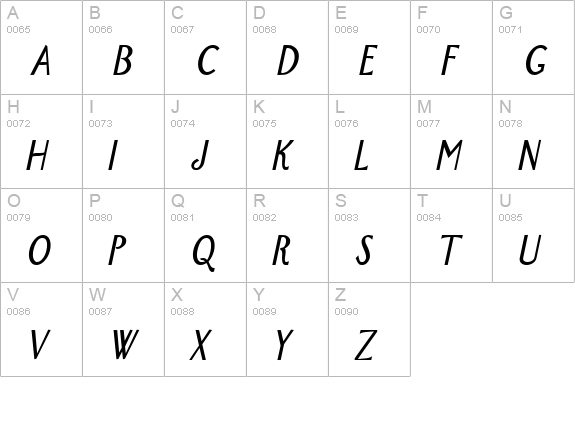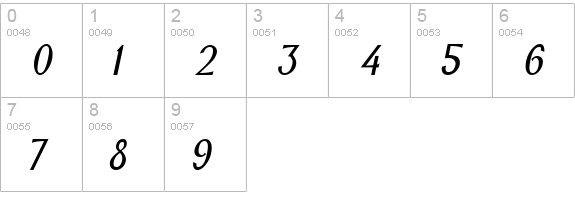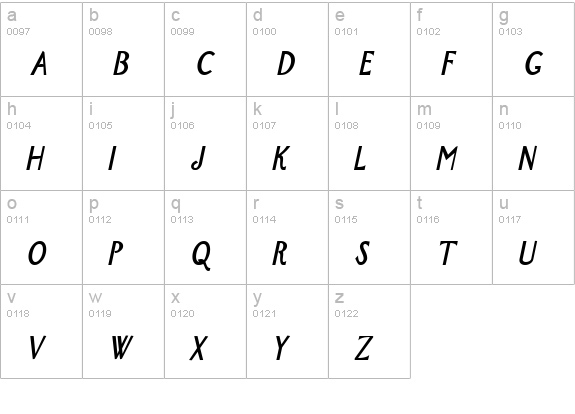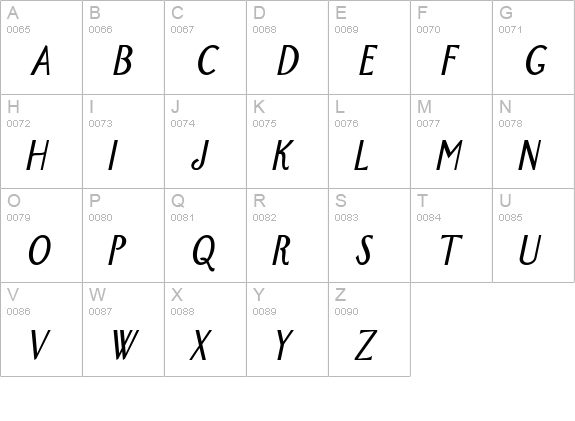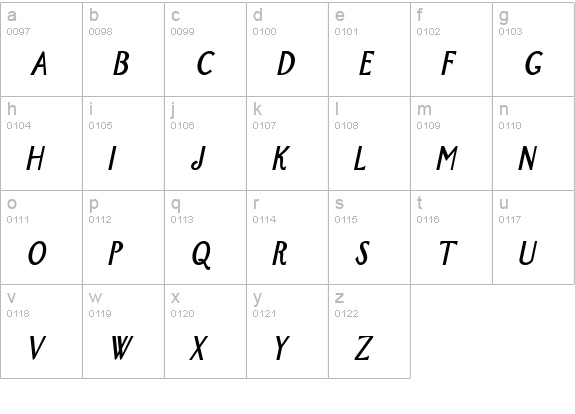
New York-Condensed Bold Italic Font Details
New York-Condensed Bold Italic is a strong, high-contrast, condensed-width, italic variant in the New typeface family \xE2\x80\x94 well suited to headlines, attention-grabbing titles, and strong calls-to-action.
Introducing the New York-Condensed Bold Italic font, a sleek and modern typeface that exudes sophistication and style. This bold and italic variation of the New York font family is perfect for making a statement in your designs. With its condensed design, it is ideal for headers, titles, and branding projects that require a touch of elegance. The New York-Condensed Bold Italic font is not only visually striking but also versatile, making it suitable for a wide range of design applications. Whether you're creating posters, logos, packaging, or any other design project, this font is sure to make a lasting impression. And the best part? This stunning font is available for free download at FontsMarket.com. Don't miss out on the opportunity to enhance your designs with the New York-Condensed Bold Italic font today!